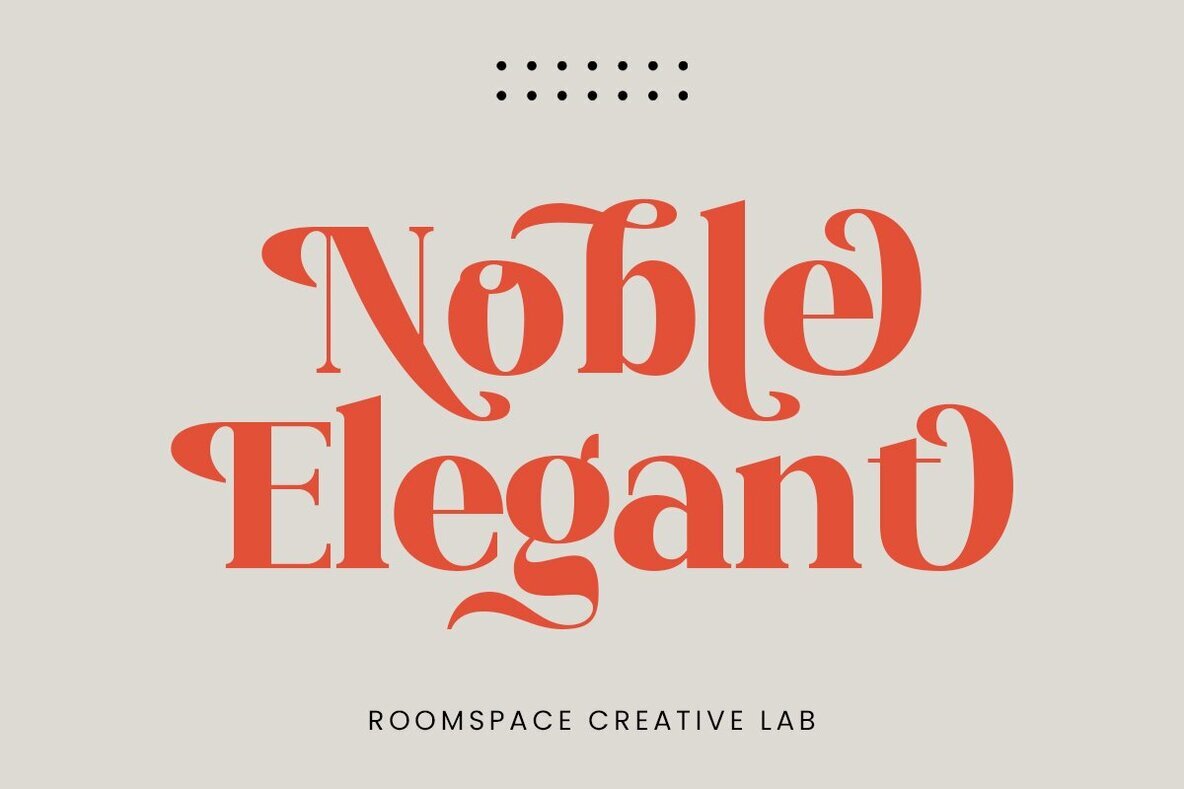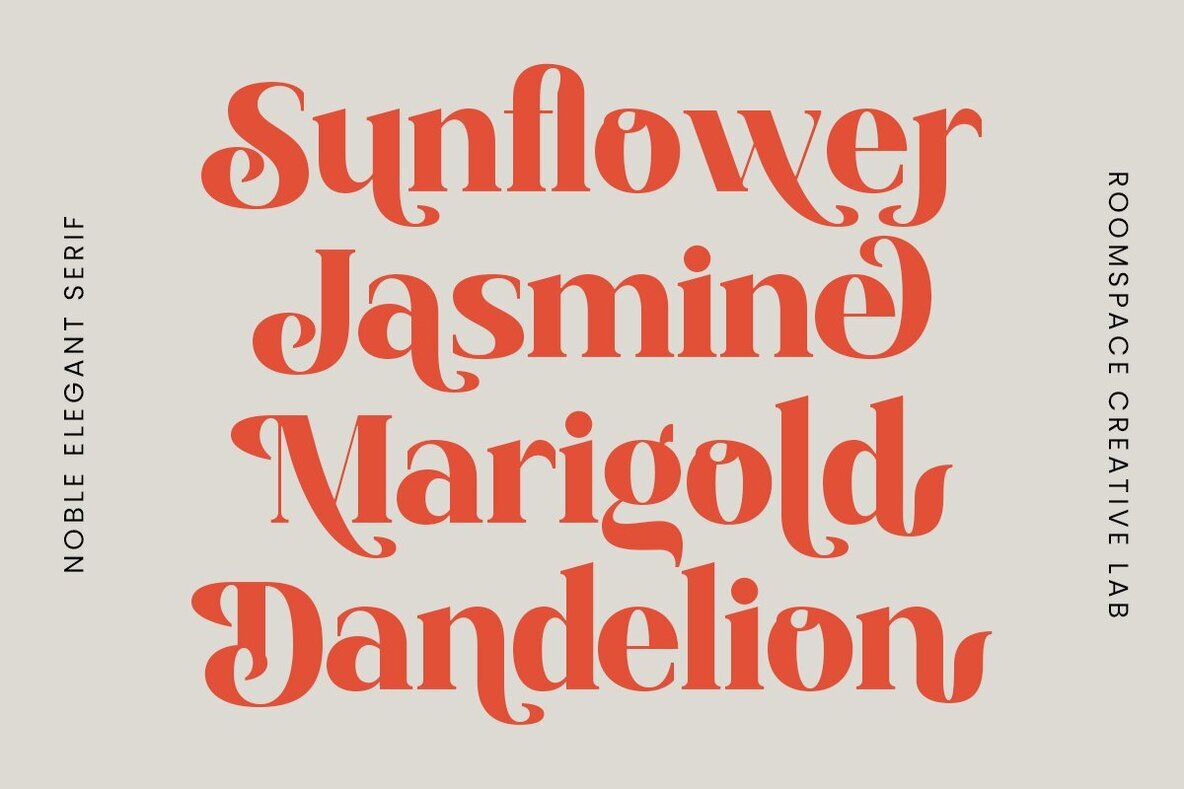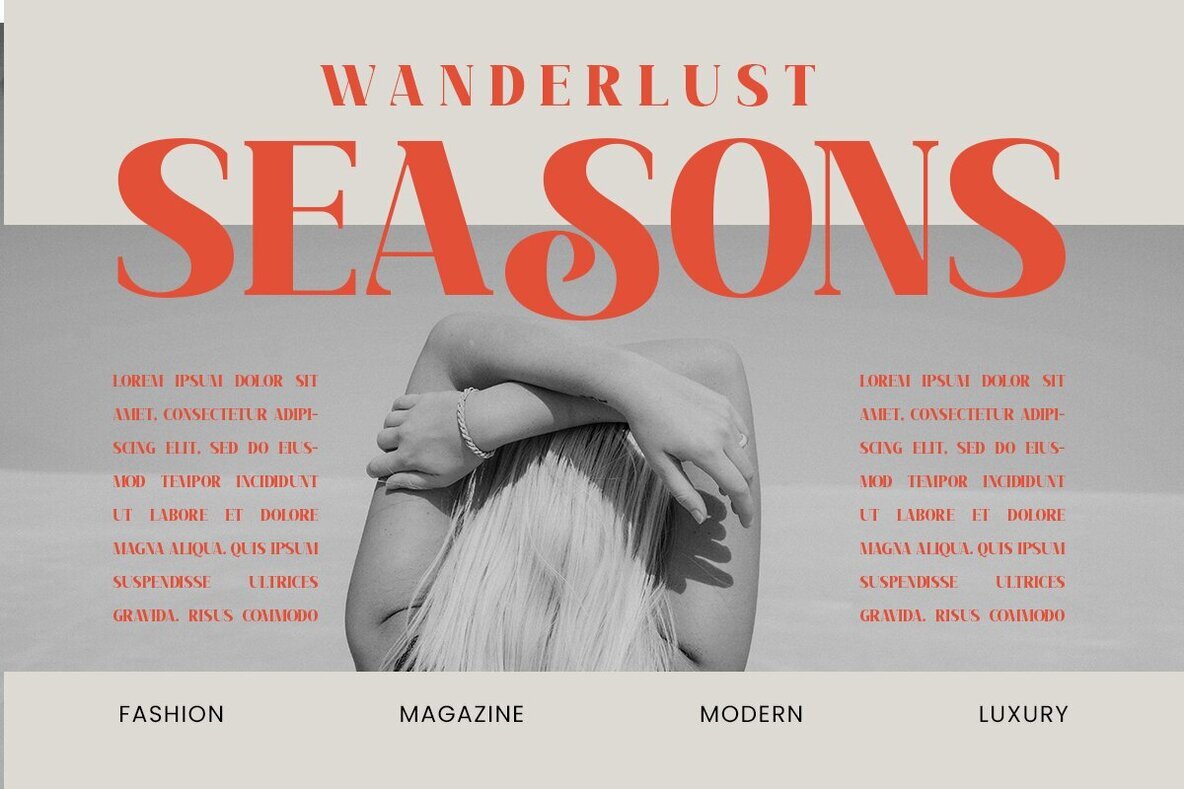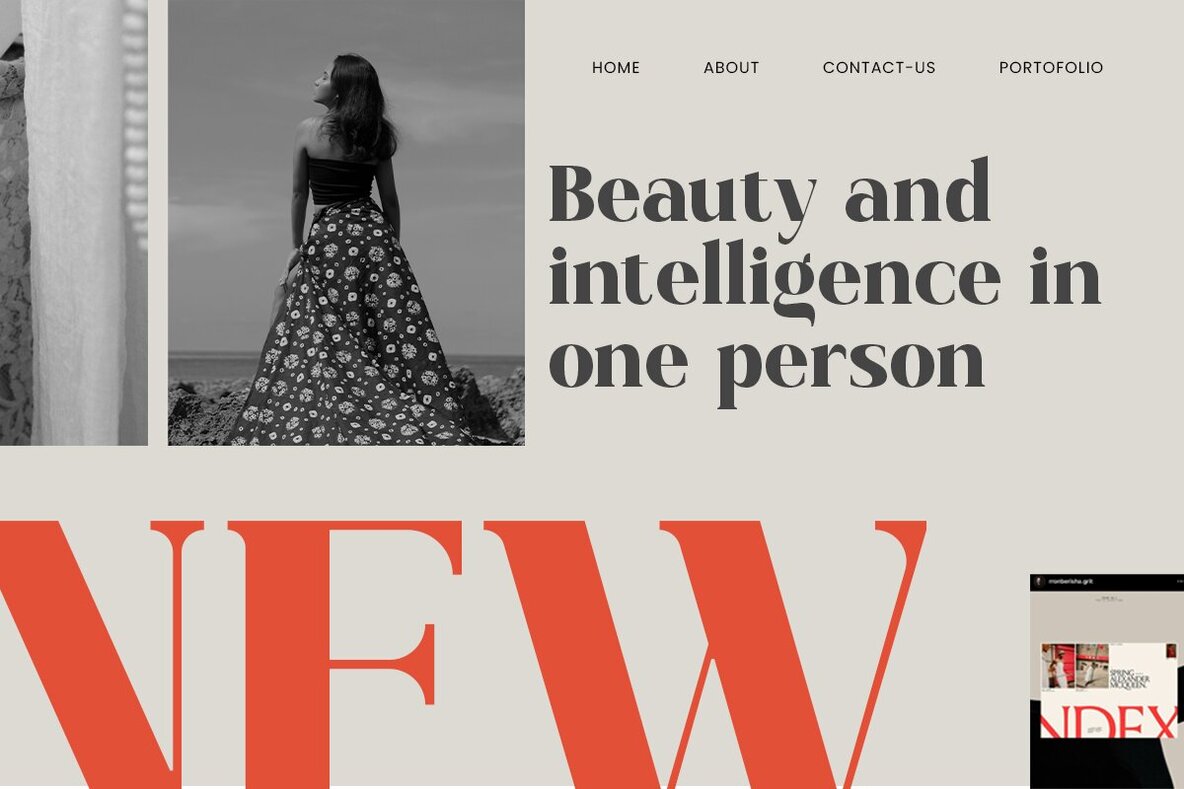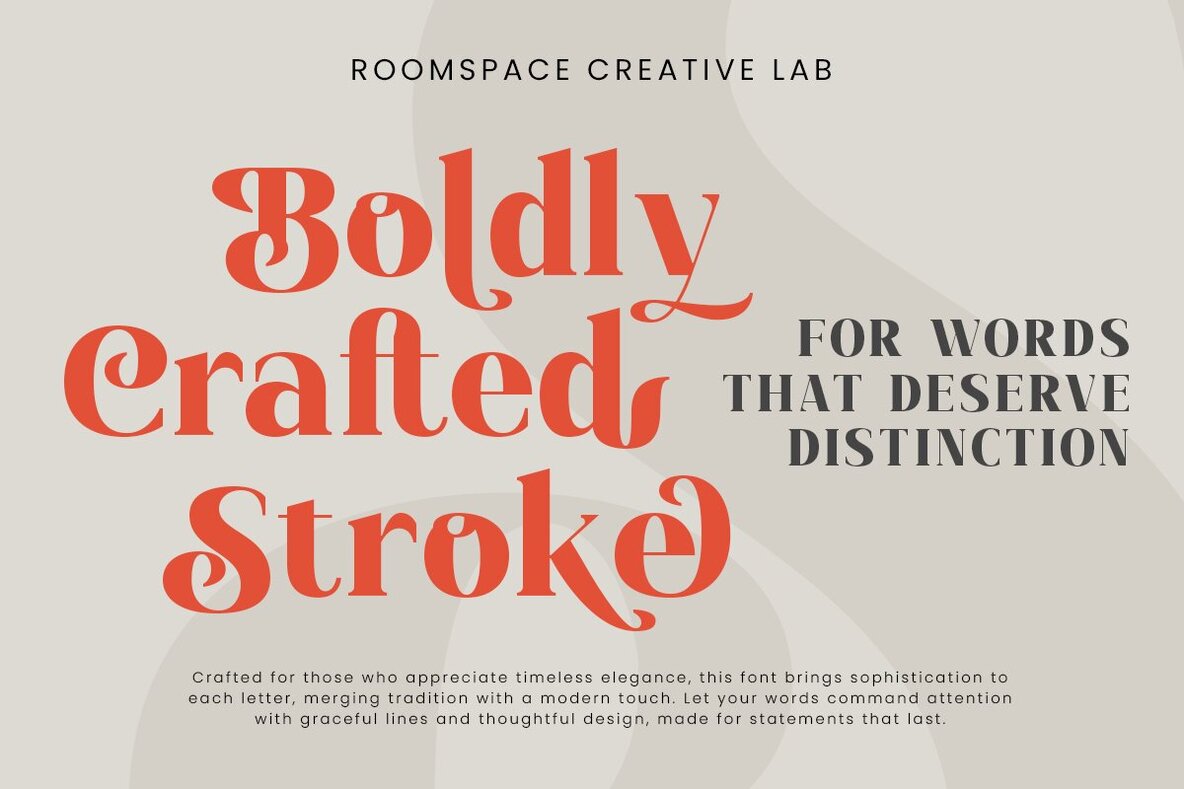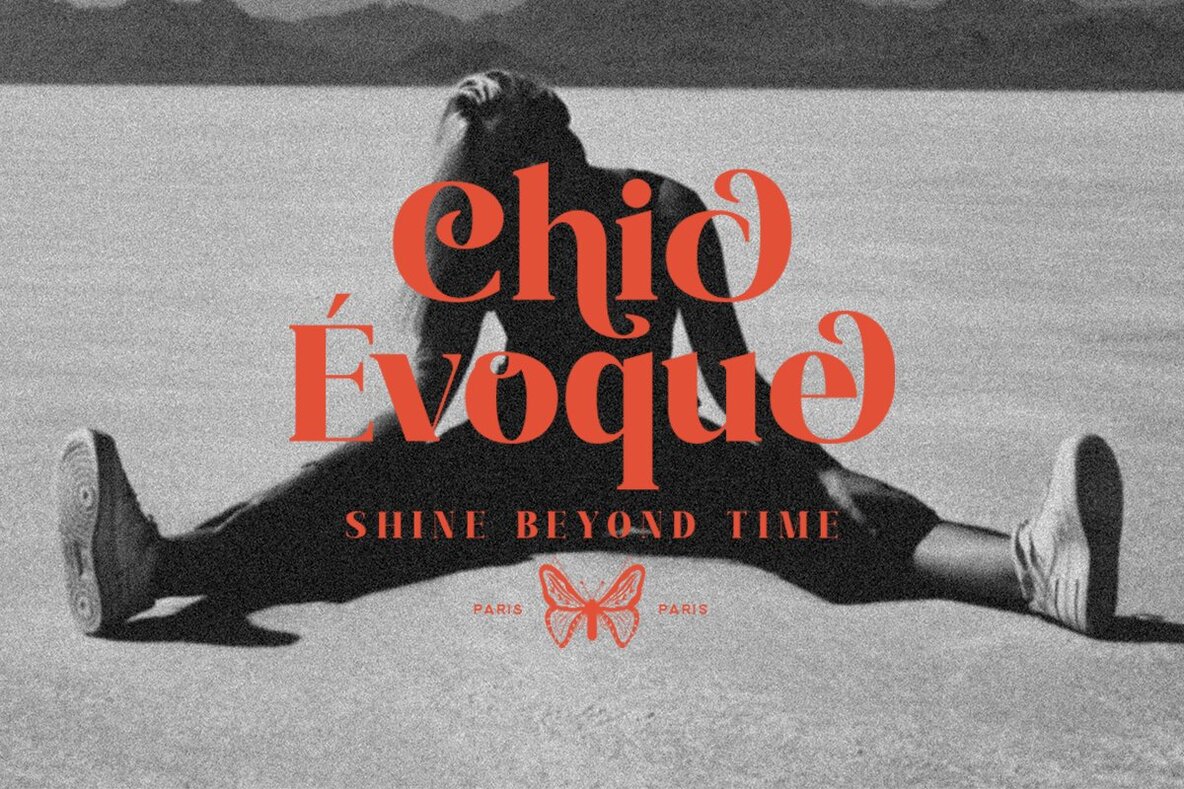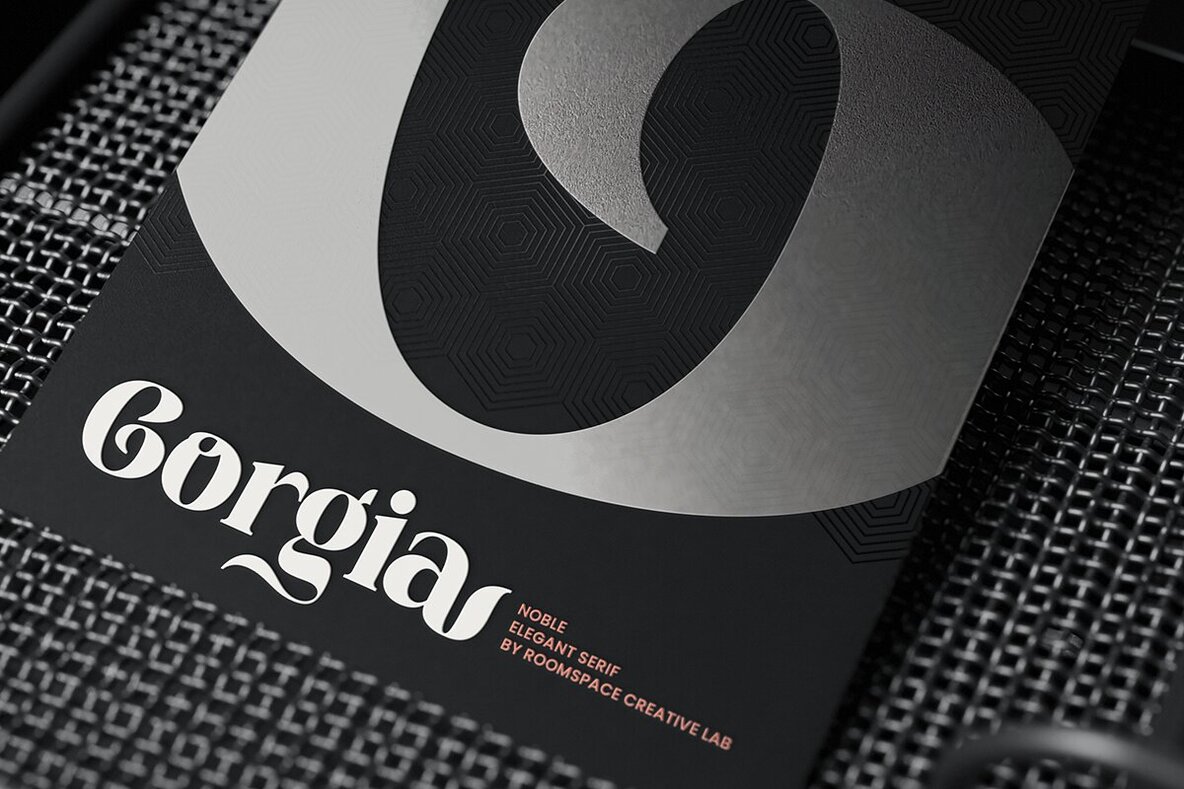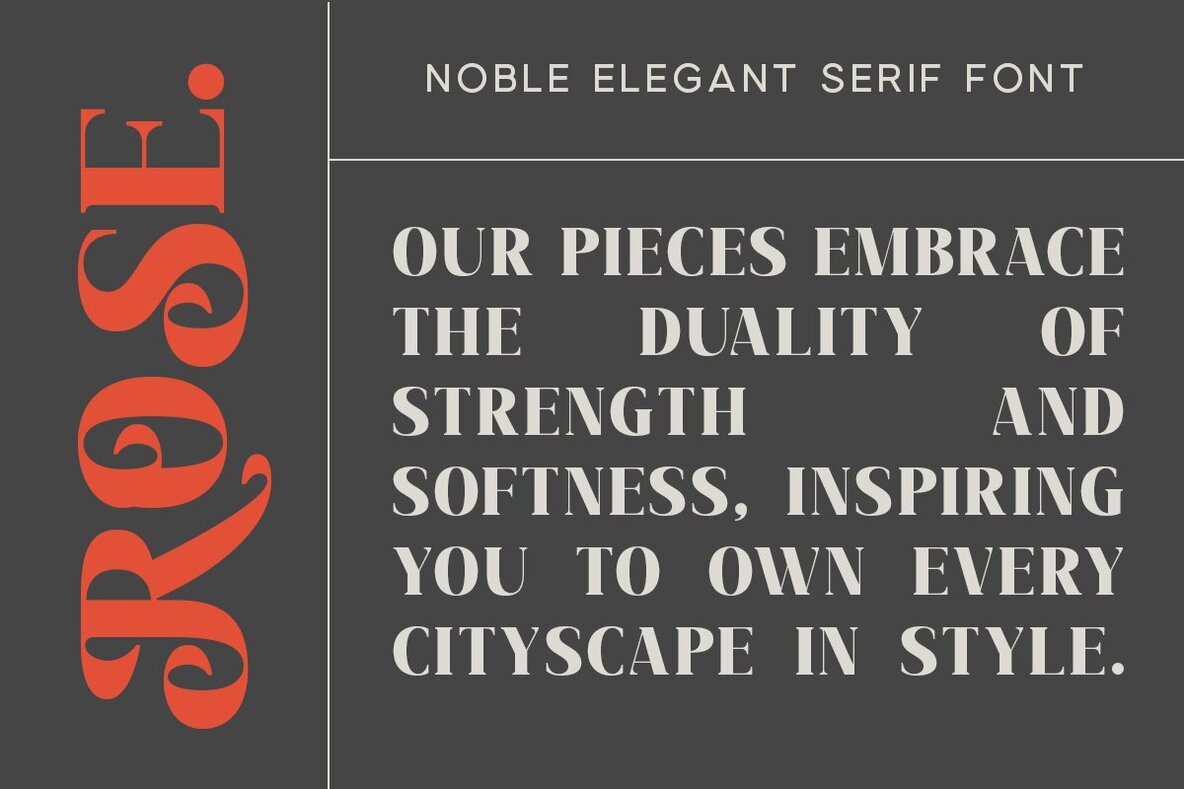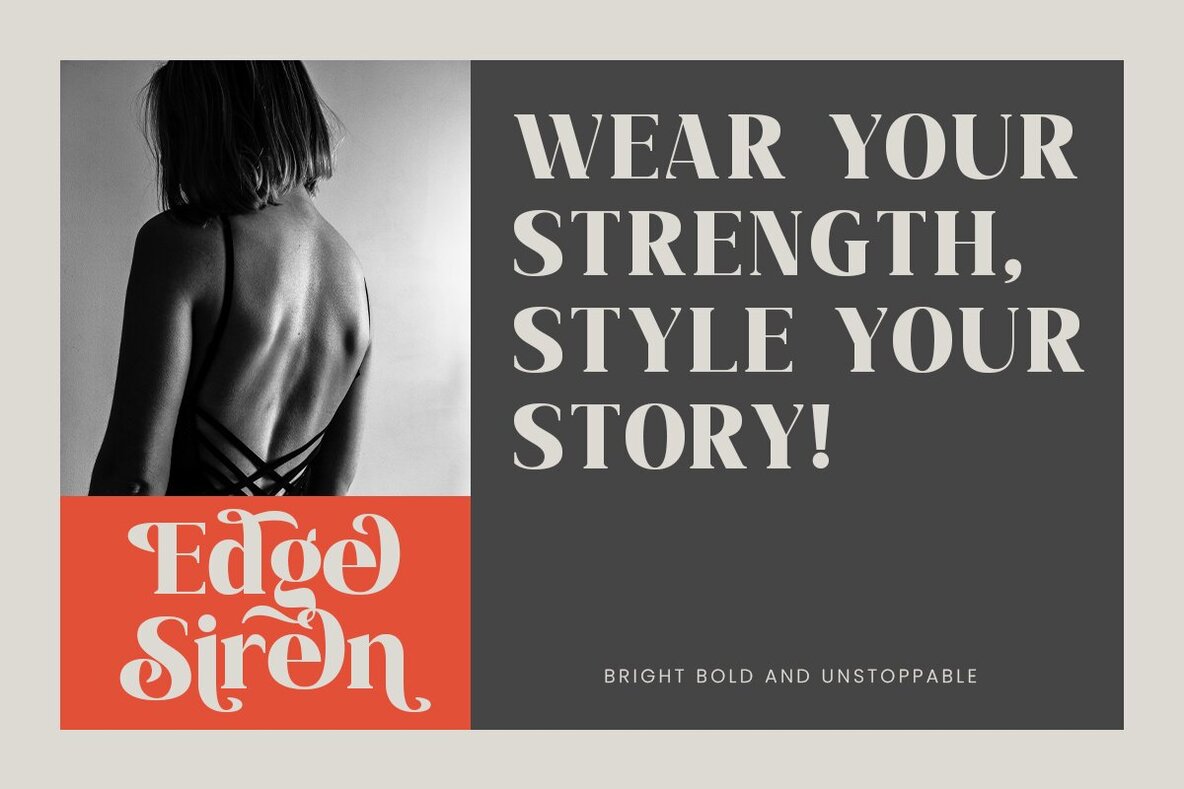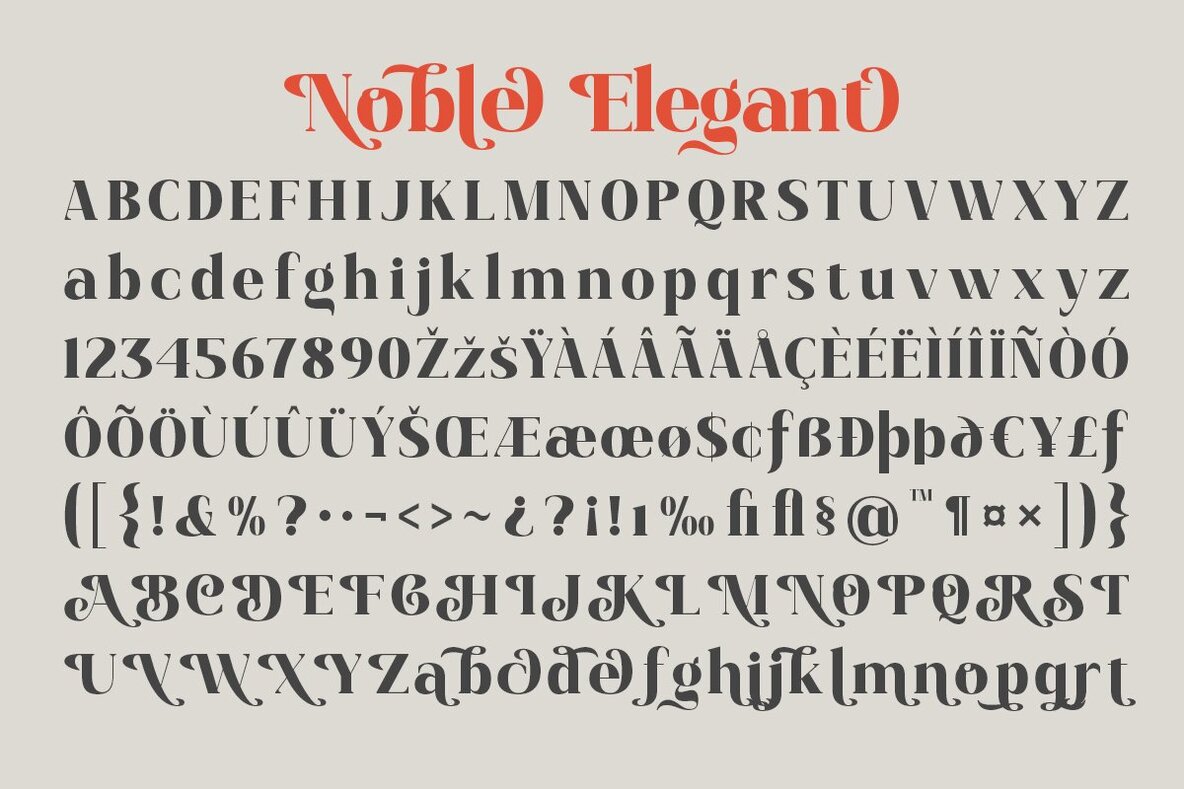
Noble Elegant Font
Introducing Noble Elegant, a sophisticated serif font that gracefully merges traditional elegance with a contemporary flair. With its distinctive swashes and subtle echoes, this font exudes sophistication in any project. Ideal for luxury branding, refined logos, editorial designs, and wedding stationery, Noble Elegant captivates with its graceful curves and unique style. Crafted to impart a sense of luxury to any text, Noble Elegant seamlessly bridges the gap between vintage charm and modern aesthetics, making it a must-have for designers who value refinement and style.Noble Elegant